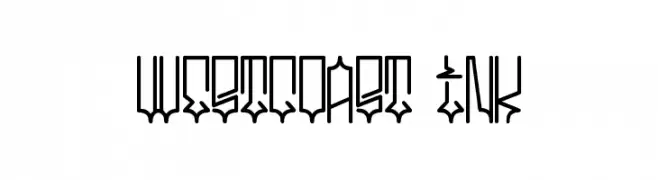
A bold, tribal-inspired font with sharp, angular strokes and a dynamic, hand-drawn appearance.
An ornate Blackletter font with gothic and medieval influences.
A decorative Gothic-inspired font with intricate flourishes and bold serifs.
An intricate, gothic Blackletter font with elaborate, angular designs.
A bold, gothic-inspired font with sharp, angular edges and dramatic styling.
A bold, edgy font inspired by body piercings and chains.
An edgy, punk-inspired font with chain and piercing motifs.